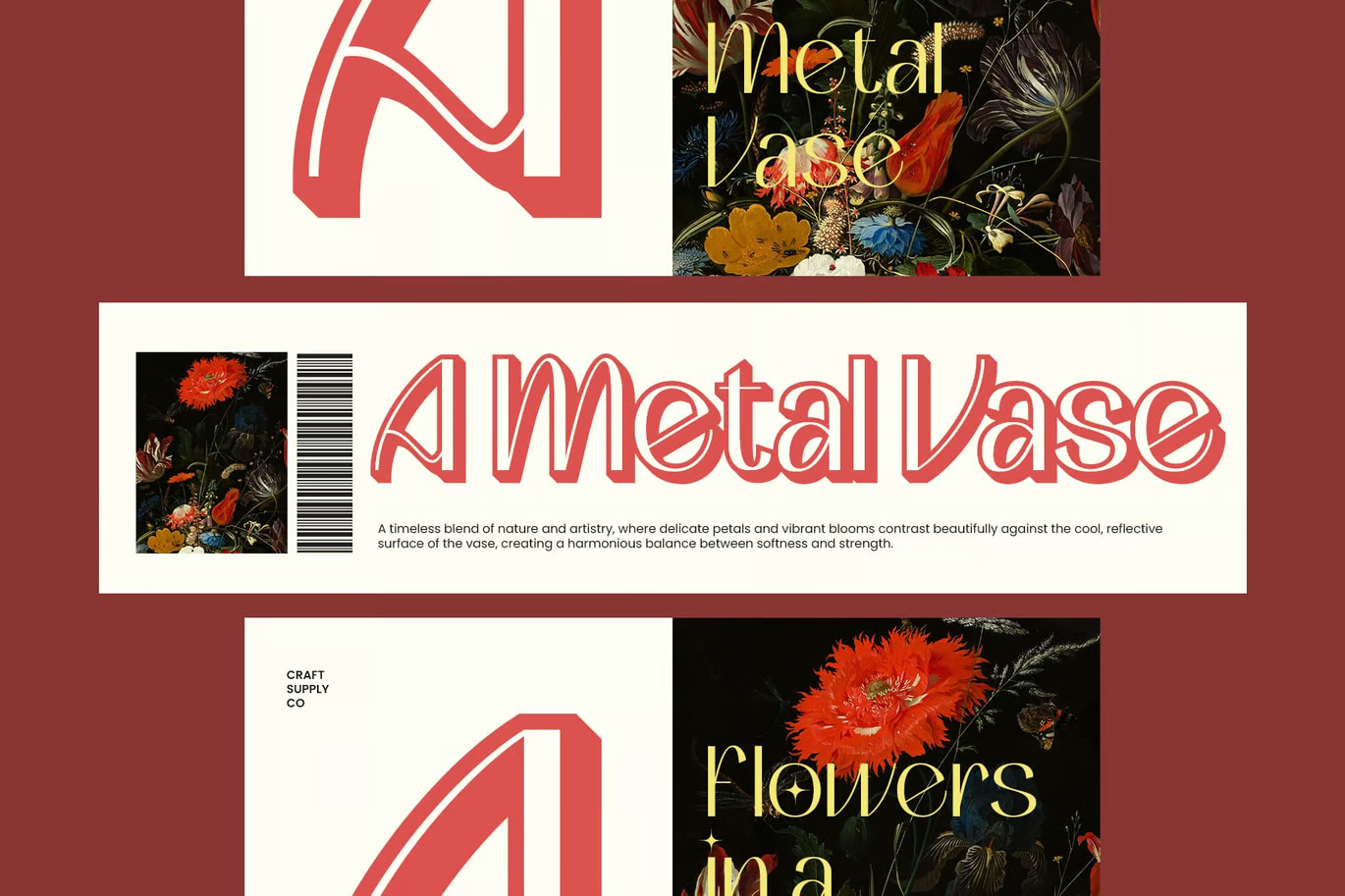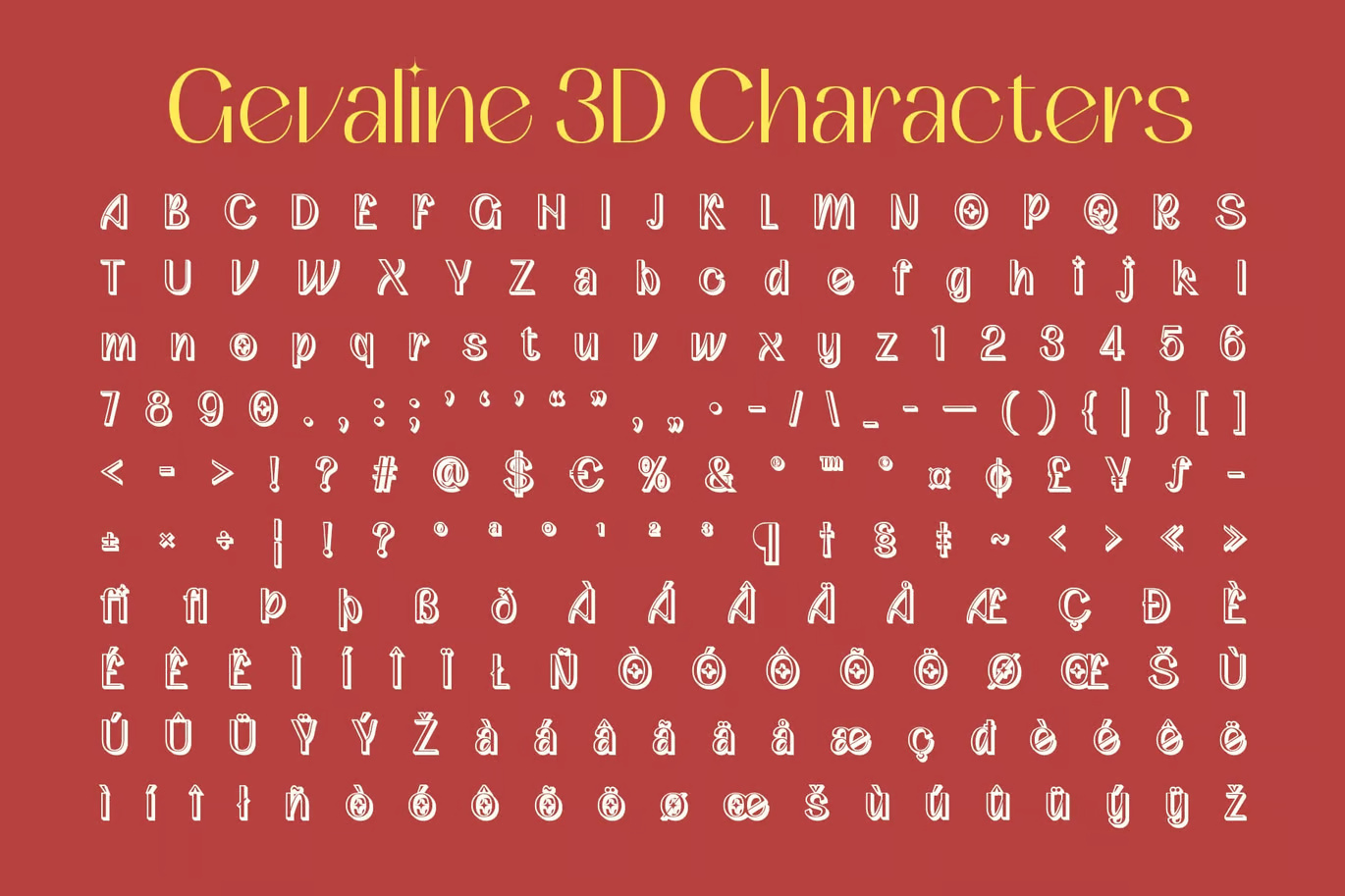
Gevaline 3D Font: Sleek, Elegant, and Aesthetically Refined
Gevaline 3D is a sophisticated sans-serif font that blends sleek minimalism with elegant beauty. Its thin, proportional letterforms exude a sense of grace and refinement, making it a perfect choice for designs that require a modern yet timeless appeal.
The addition of a subtle yet striking 3D effect enhances the font’s luxurious and aesthetic charm. This effect creates a sense of depth and sophistication, ensuring that text appears dynamic and visually engaging—perfect for high-end and fashion-forward branding.
Designed for elegant and stylish projects, Gevaline 3D is ideal for beauty brands, fashion magazines, and luxury packaging. Its refined curves and modern proportions make it a go-to choice for editorial layouts, high-end logos, and contemporary branding that demand a chic and polished look.
Gevaline 3D masterfully balances classic elegance with modern innovation. Whether for premium branding, minimalist aesthetics, or futuristic visuals, this font delivers an effortless blend of sophistication and cutting-edge design, making every project feel exclusive and visually striking.
Gevaline 3D Sans-Serif Font